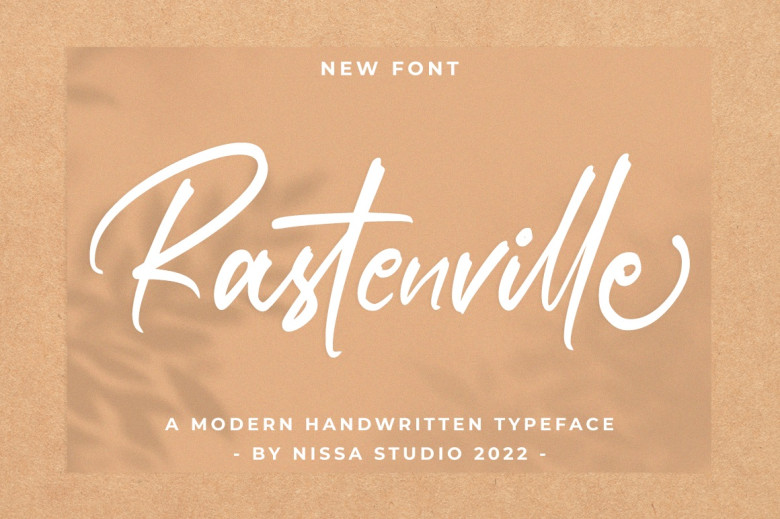
Rastenville Font
Rastenville is an exclusively handwritten font that has a nice appearance, it is very thin and looks very prominent when combined. You will be able to bring a luxury vibe to any design project that you would like to work on! All the glyphs and ligatures are included and this font is PUA encoded making it very easy to use all the symbols.
Rastenville Handwritten Font